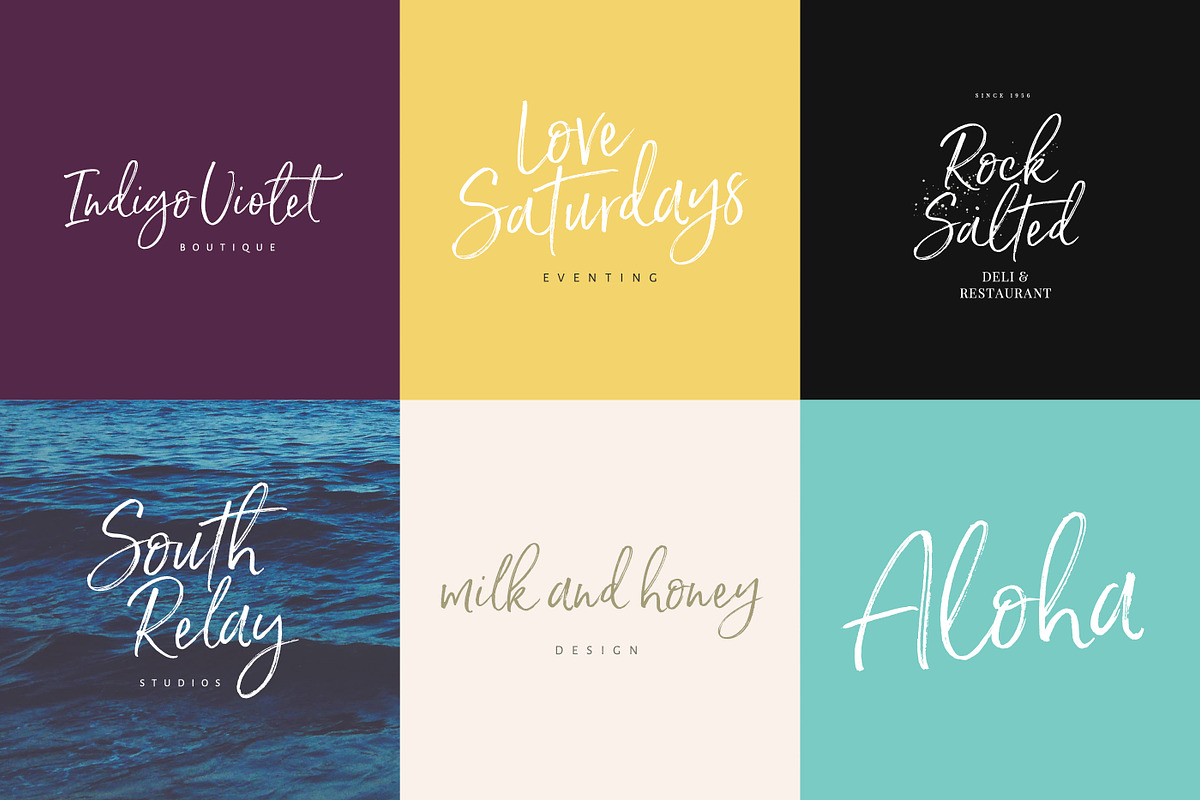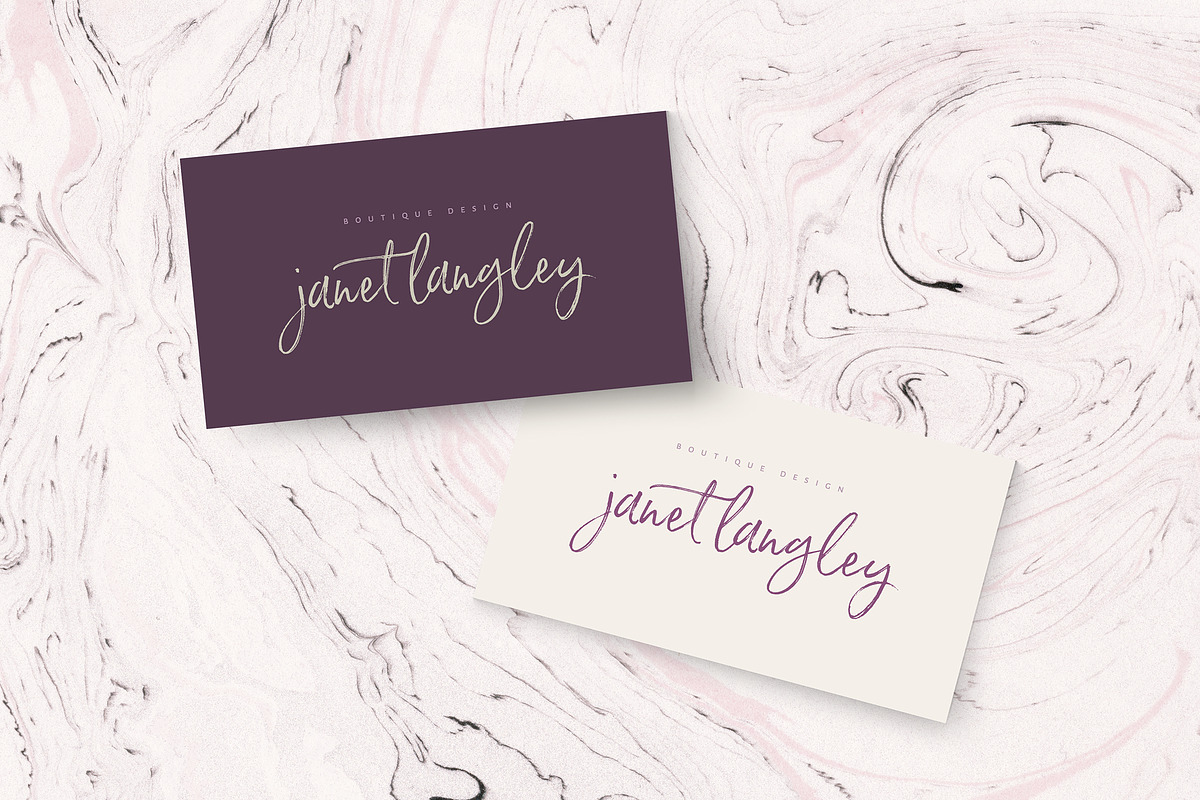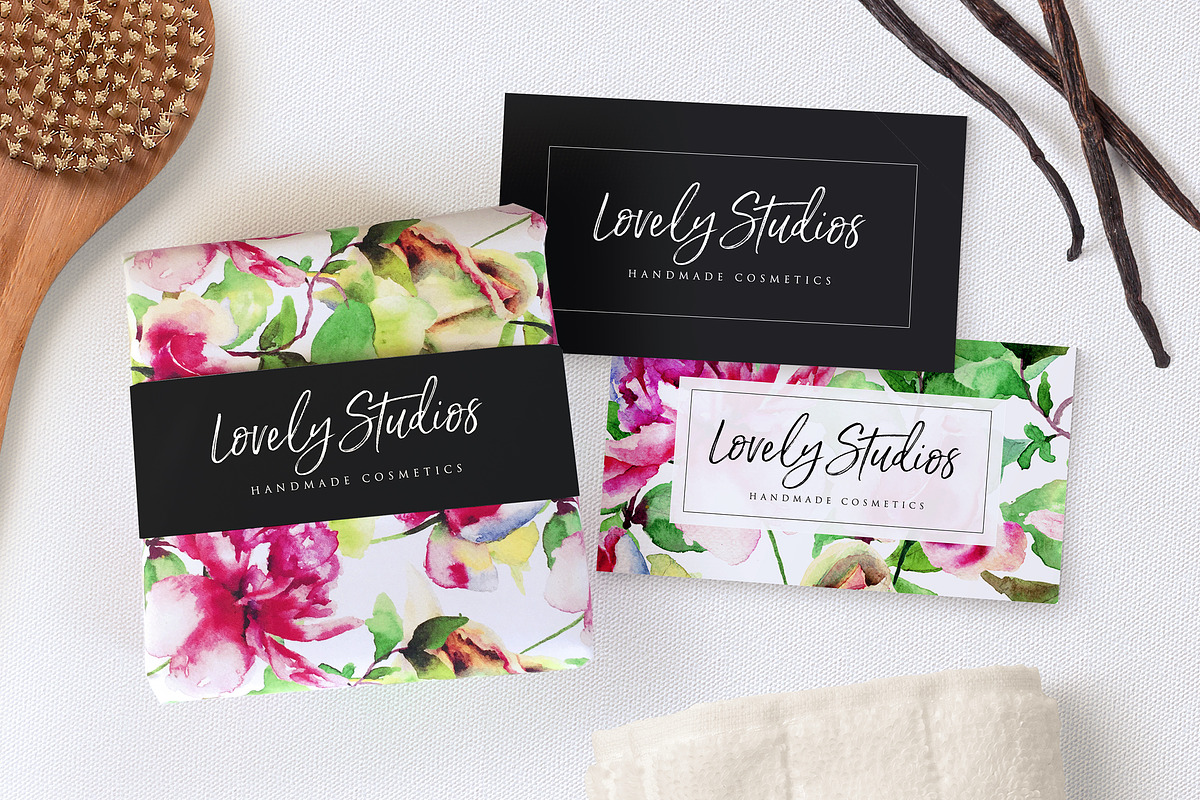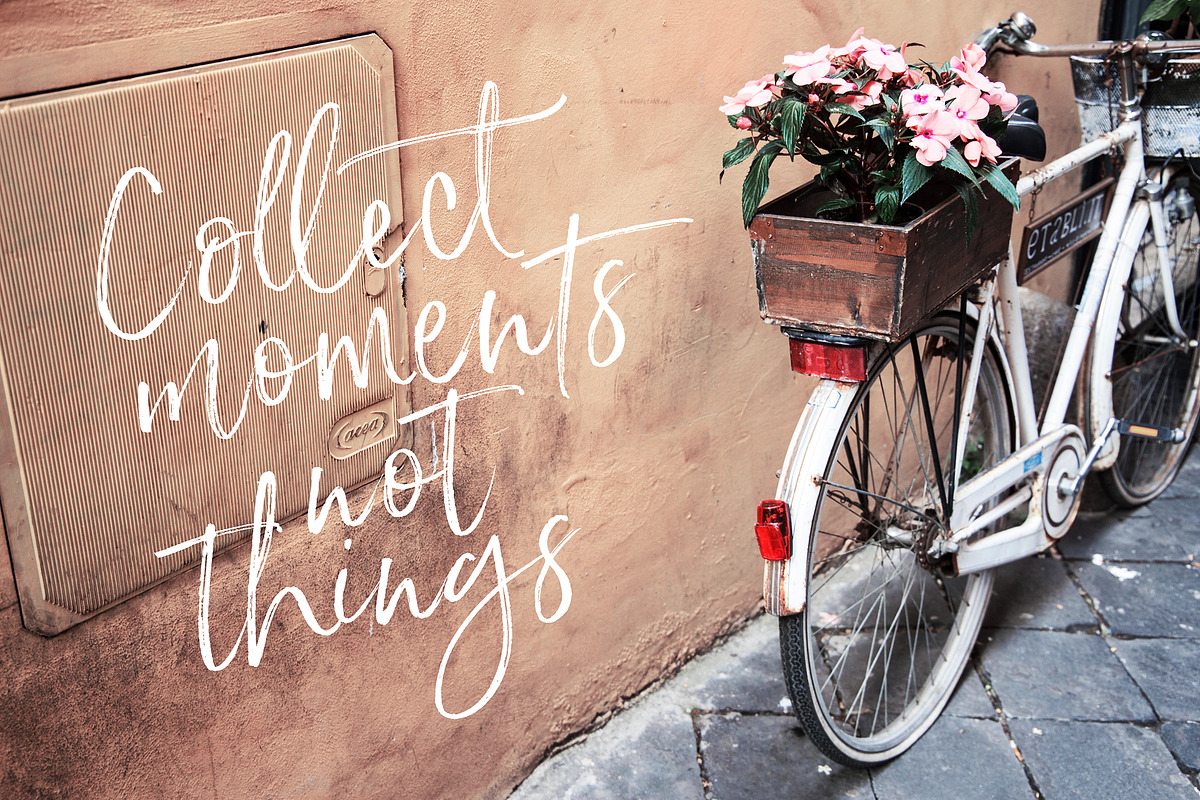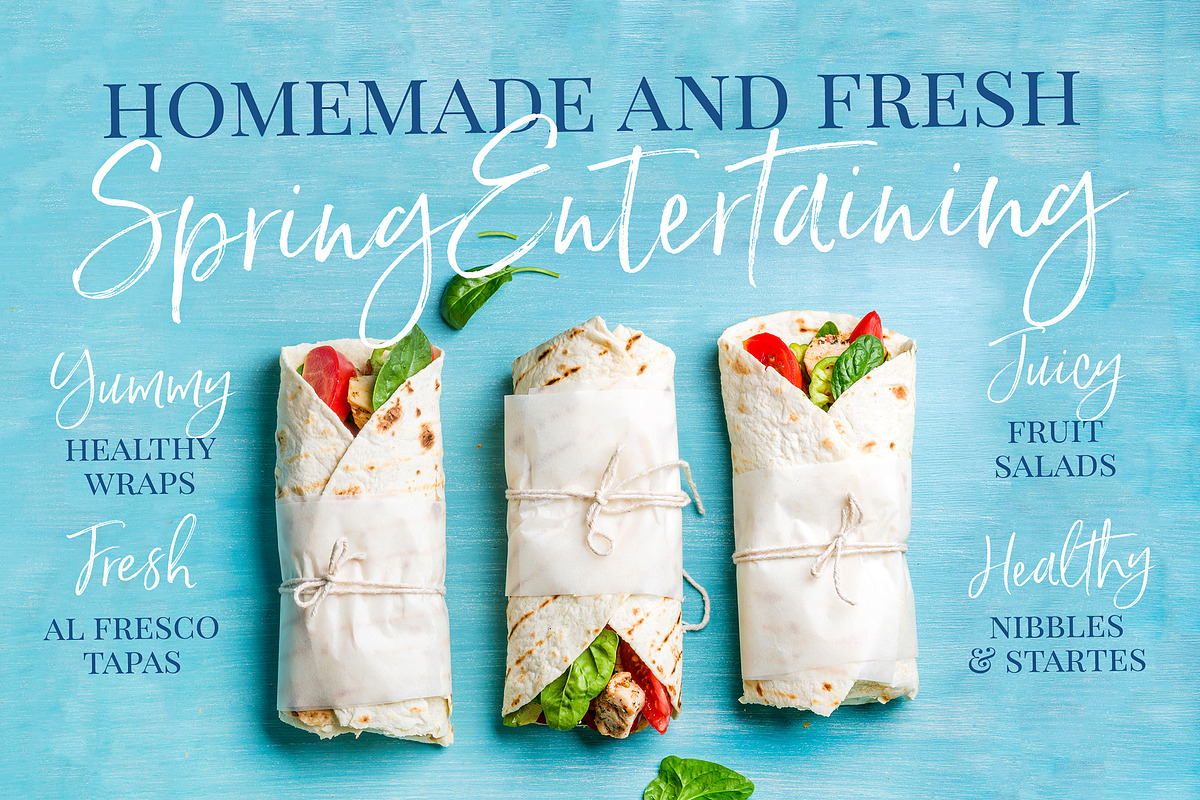
Saturday Font is a carefree, handwritten script with authentic tell-tale dry brush imperfections. Saturday Script has the bonus of having ‘multiple personalities’!
It has 2 sets of extra alternate lowercase letters, which allow you to create different feels for different projects. Whether you need “flaunty & loud” or “soft & romantic” there’s a letter combination to get the look you want.
EXTRA ALTERNATE LETTERS: To make your designs look even more naturally handwritten, Saturday Script has 2 extra sets of alternate lowercase letters, allowing you to make each word look unique to the next!